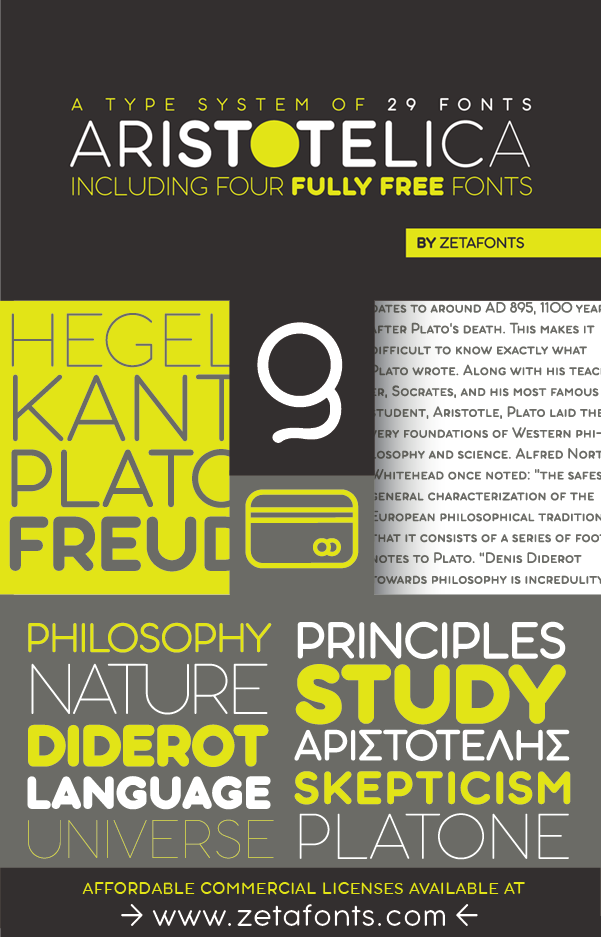
Aristotelica Display
Aristotelica stands out in the world of typography as an exceptional sans-serif typeface family with rounded geometric characteristics. This versatile font family offers a wide range of applications, from modern web design to creative branding projects. Its unique blend of geometric precision and rounded edges lends a friendly and approachable aesthetic while maintaining a clean and contemporary look. Whether you're designing a sleek user interface or a captivating logo, Aristotelica provides the tools you need to make your text both visually engaging and highly readable.